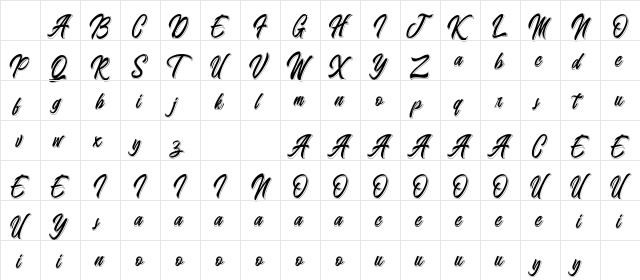
Complete Badminton Of Shadow Regular glyph index. Displaying only characters natively supported by Badminton Of Shadow Regular font.
Badminton Of Shadow is built around its visual character rather than neutral utility - its distinctive forms are designed to make an impression at display sizes.
Font Pairing: Pair with a clean neutral sans-serif for body copy to let Badminton Of Shadow's character lead without overwhelming the composition.
Pro Tip: Use Badminton Of Shadow exclusively at display sizes - it was designed to be seen, not read at length. Let a neutral companion handle body copy.